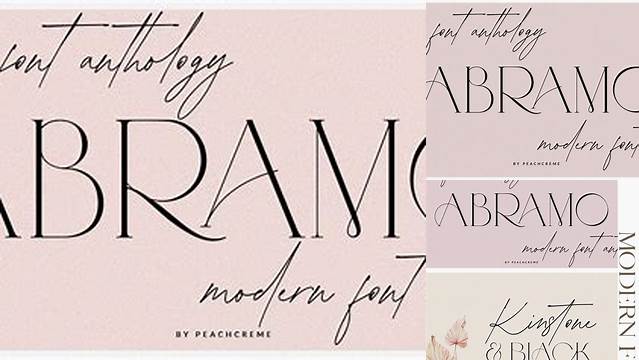
Hey guys! Looking for a sleek and modern font to spice up your designs? You're in the right place! Today, we're diving deep into the world of the Abramo Serif font – a fantastic choice for everything from website headlines to elegant print materials. And the best part? You can find an Abramo Serif free font download to get started! This guide will walk you through everything you need to know, from where to snag the font to how to use it effectively. Get ready to elevate your projects with this stunning typeface!
Abramo Serif Font: An Introduction to Elegance
First things first, what exactly is Abramo Serif? Think of it as your new go-to for projects that demand a touch of class and sophistication. It's a serif font, meaning it has those little strokes (serifs) at the end of the letters, which gives it a classic and refined look. This font is known for its clean lines, balanced proportions, and readability, making it perfect for a wide variety of applications. Whether you're designing a website, creating marketing materials, or just need a stylish font for personal projects, Abramo Serif is a solid choice. Its versatility allows it to shine in both headlines and body text, making it a valuable asset for any designer or content creator. The font's design promotes legibility, ensuring that your message is conveyed clearly and effectively. It's not just about aesthetics; it's about providing a seamless and pleasant reading experience for your audience. Abramo Serif stands out not only because of its visual appeal but also due to its ability to harmonize with diverse design elements, enhancing the overall impact of your project. The typeface's inherent grace and refined nature are truly what make it a stand-out choice for professional-looking projects. This font brings a touch of professionalism and style to every use, easily adapting to different needs and preferences. It's a dependable selection for a range of projects because of its adaptability and timeless design.